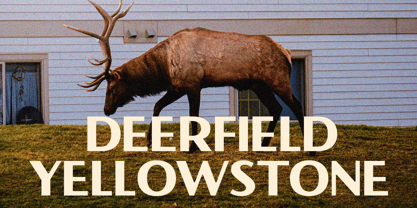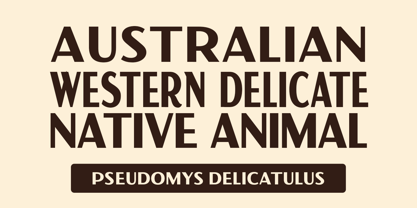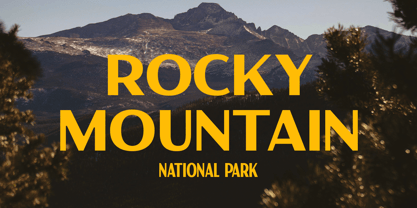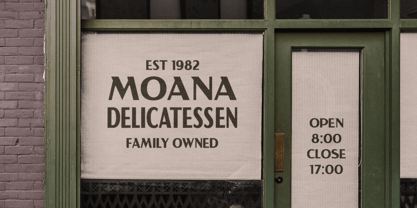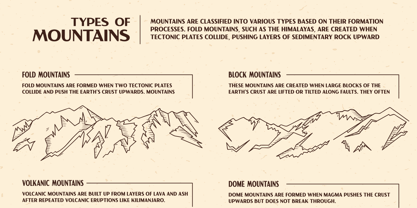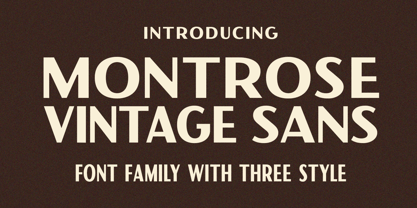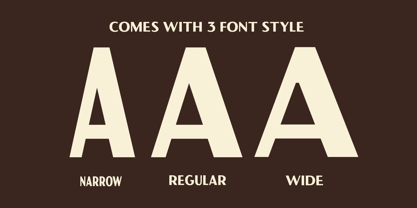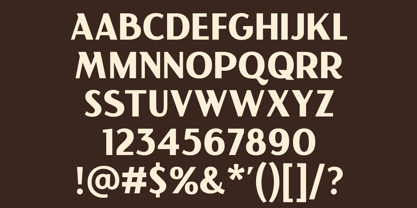
VW Montrose
by Viswell
The VW Montrose Font Family was designed by Najril Ilham Amrullah and published by Viswell. VW Montrose contains 3 styles and family package options. More about this family
Montrose Vintage Sans is a timeless sans-serif font family inspired by the rugged charm and natural beauty of vintage National Park posters. Designed to evoke a sense of nostalgia, this font brings the spirit of the great outdoors to your creative projects. With three versatile styles—Regular, Wide, and Narrow—Montrose Vintage Sans offers flexibility for headlines, posters, logos, and branding. Its bold yet clean design makes it perfect for capturing the essence of adventure, exploration, and classic Americana. Whether you're creating designs for travel campaigns, outdoor brands, or heritage-inspired work, Montrose Vintage Sans is your go-to typeface for a touch of nature’s grandeur.
Designers: Najril Ilham Amrullah
Foundry: Viswell